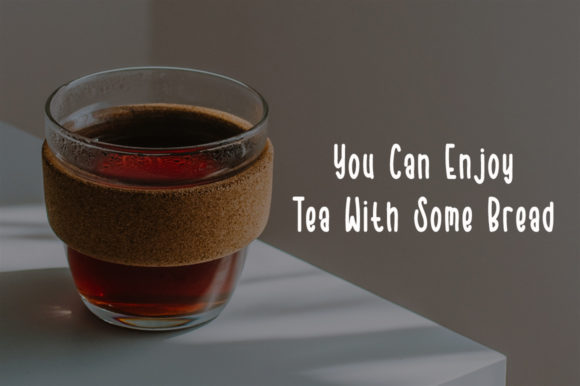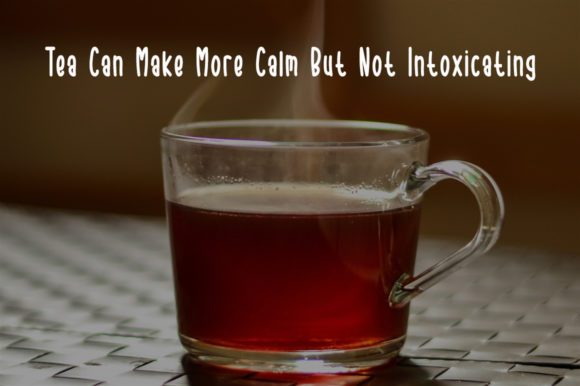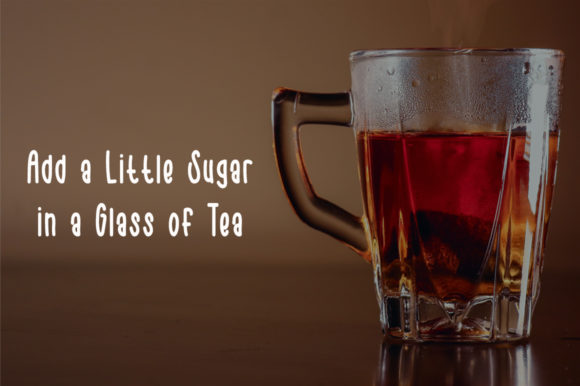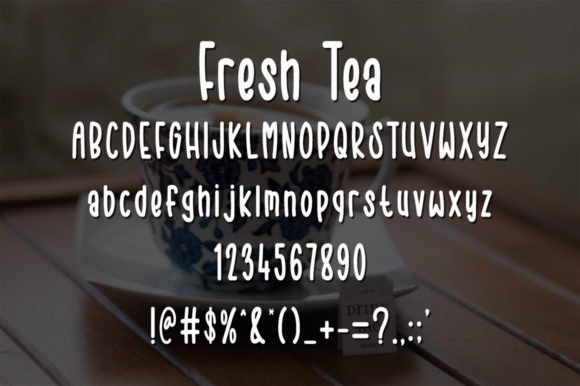
Discover the Perfect Blend for Your Next DIY Project
Have you ever sat down with a blank sheet of paper, a cup of steaming hot tea, and a dash of creativity? That’s where the magic happens – and for many designers, it’s where the perfect font comes to life. Introducing Fresh Tea Font, the result of a beautiful pairing between a brush pen and pencil that adds a touch of authenticity to any DIY project.
Whether you’re crafting invitations, signs, or art journals, Fresh Tea Font is the perfect addition to bring your creations to life. Its unique, handwritten style makes it instantly endearing and adds a personal touch to your designs. As a designer, you know how valuable it is to have a font that truly reflects your brand’s personality – and Fresh Tea Font is sure to become a staple in your toolkit.
Fresh Tea Font Key Features
- Unique Characteristics: The font features a unique blend of modern and traditional design elements, with subtle tea-inspired motifs and elegant typography.
Designer Review: Fresh Tea Font
As a designer, I was excited to dive into the Fresh Tea Font and see what it had to offer. ✨ The first thing that caught my eye was the playful, handwritten feel of the font. It’s perfect for creating a fun and approachable brand identity. I also appreciated the range of weights and styles available, making it easy to use across different applications.
The font’s flexibility and expressiveness are major strengths. It works well for headings, body text, and even signage. I particularly liked using it for quotes and testimonials, where the handwritten feel adds a personal touch. ✨
- ⚠️ The font may not be ideal for formal or professional applications, as its playful nature may not be taken seriously.
- ⚠️ The font’s readability can suffer in smaller sizes, making it less suitable for body text in digital applications.
Overall, I think Fresh Tea Font is a solid choice for designers looking to add some personality to their projects. It’s versatile, easy to use, and works well in a variety of contexts. While it may not be perfect for every application, it’s definitely worth considering for projects where a playful, handwritten feel is desired.
Tips for Getting the Most Out of Fresh Tea Font
For the best results, use Fresh Tea Font in combination with other design elements that complement its unique style. Experiment with different font sizes, colors, and arrangements to find the perfect look for your design.
Fresh Tea Font is ideal for use in:
- Food and beverage branding
- Health and wellness marketing
- Home decor and furniture design